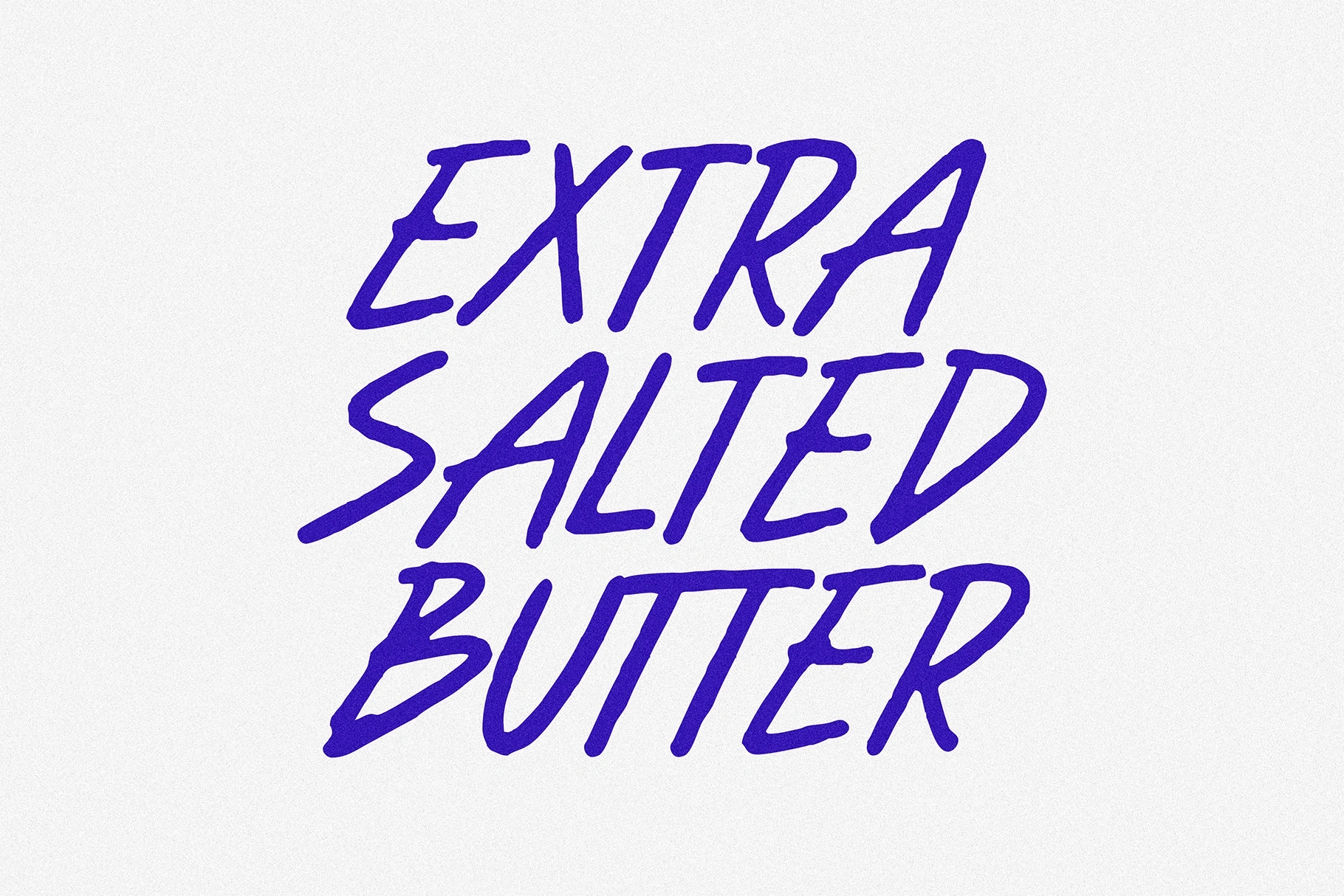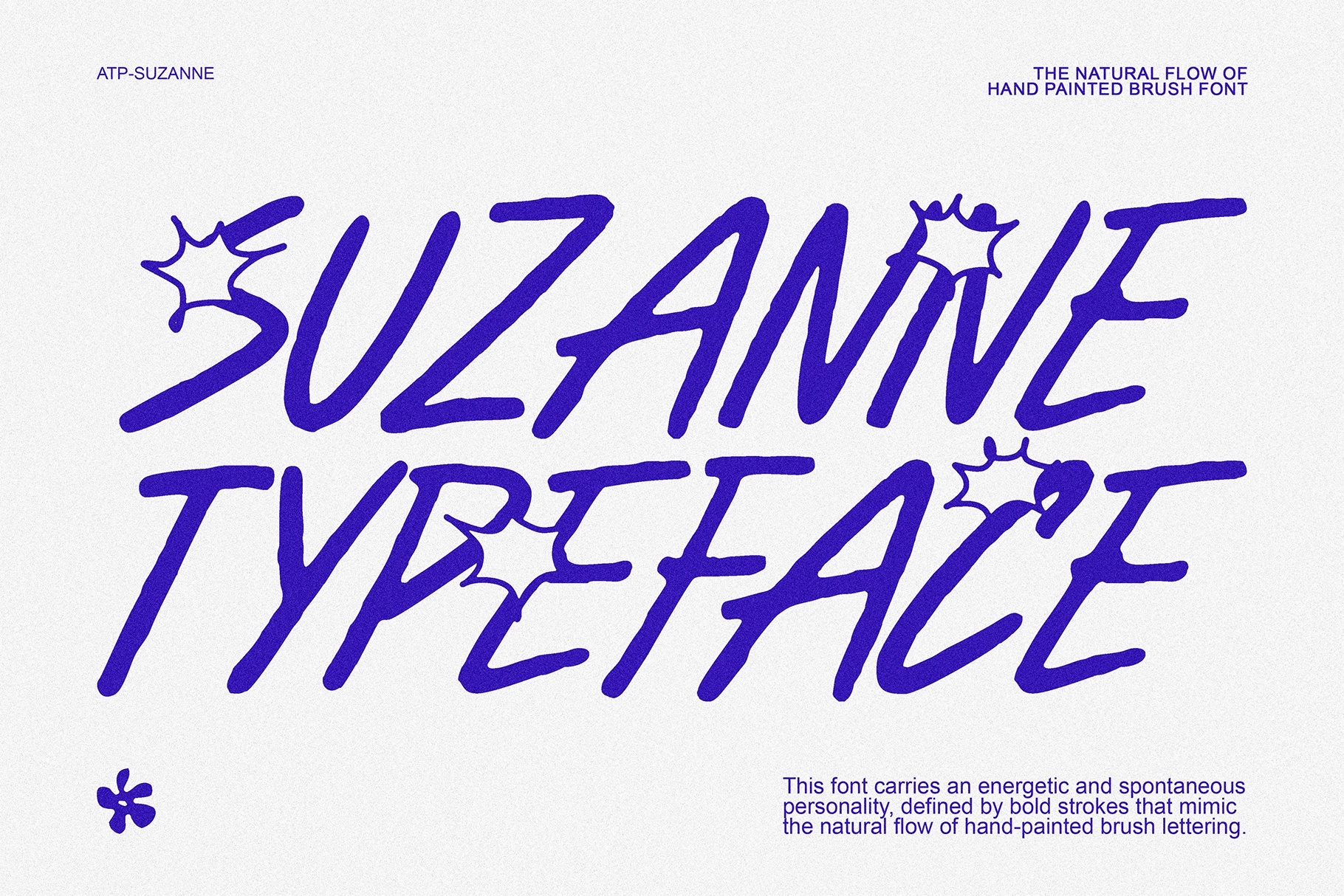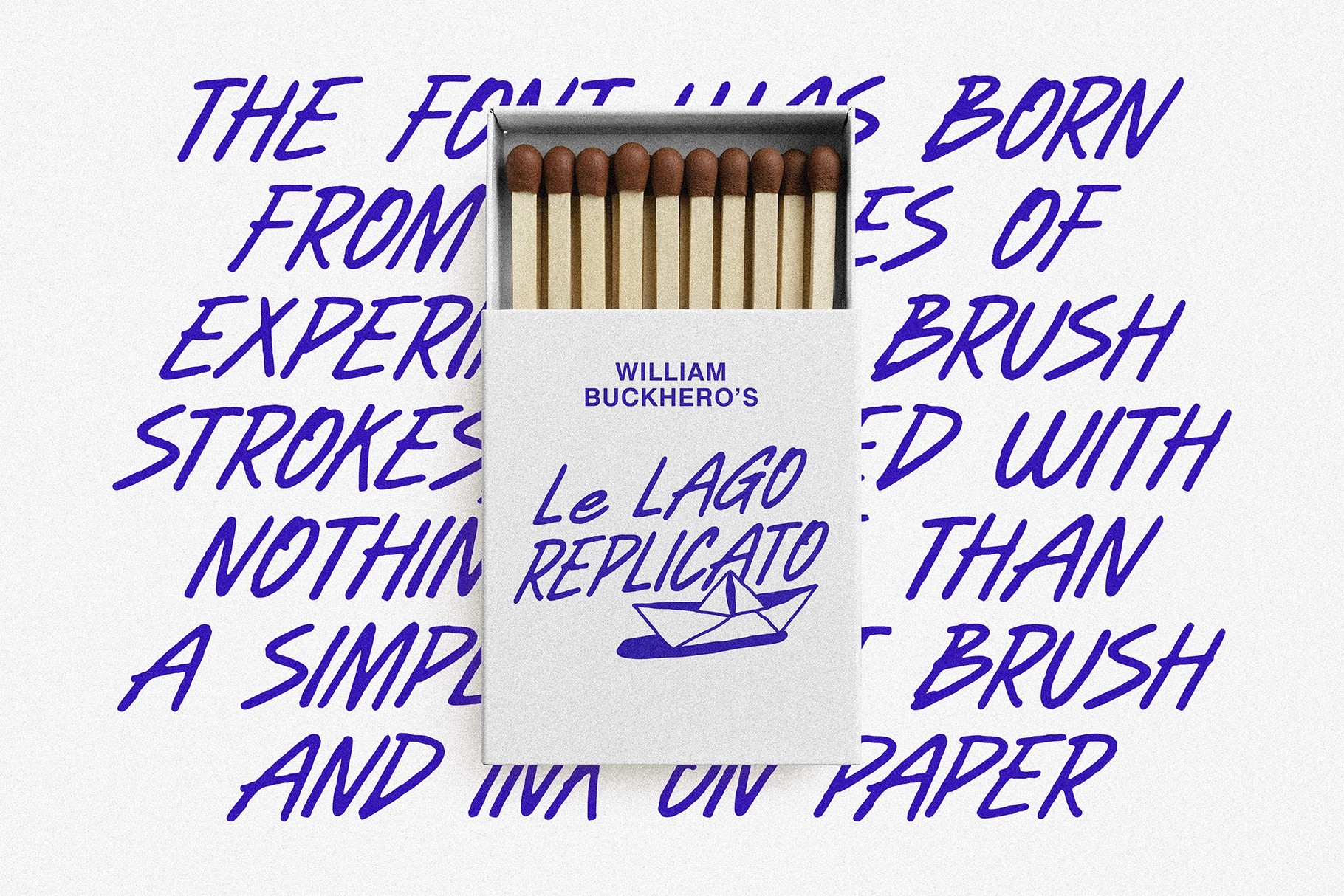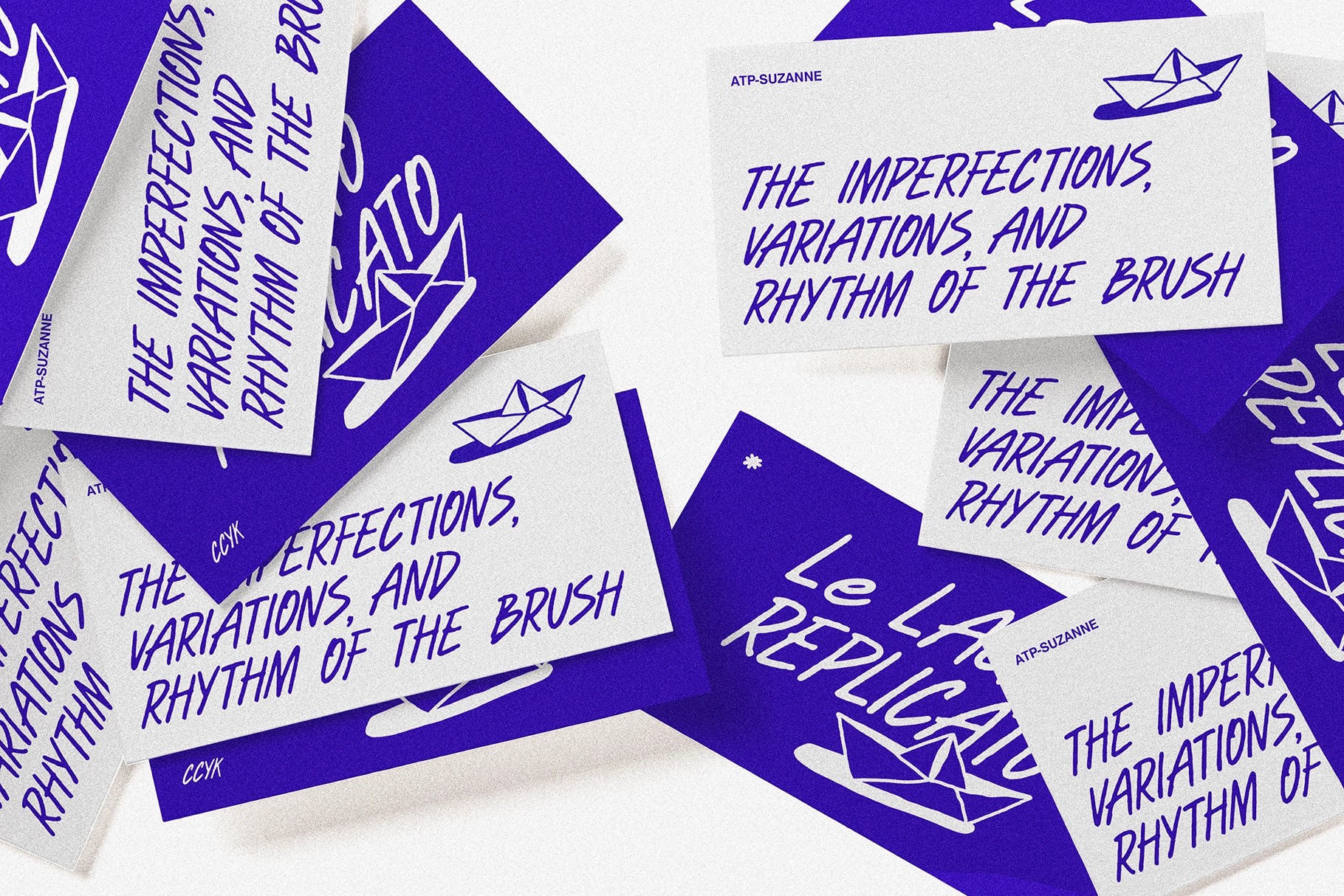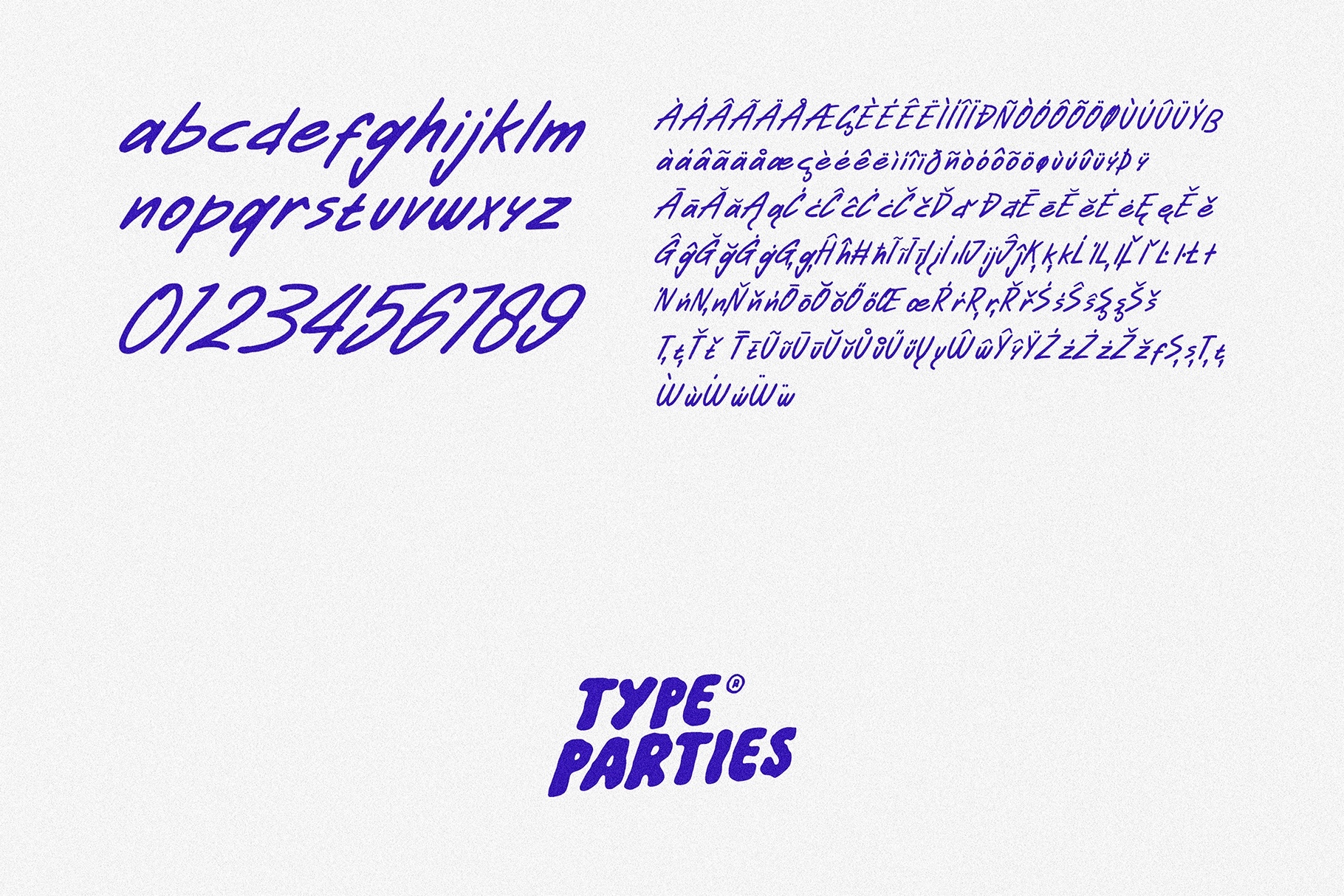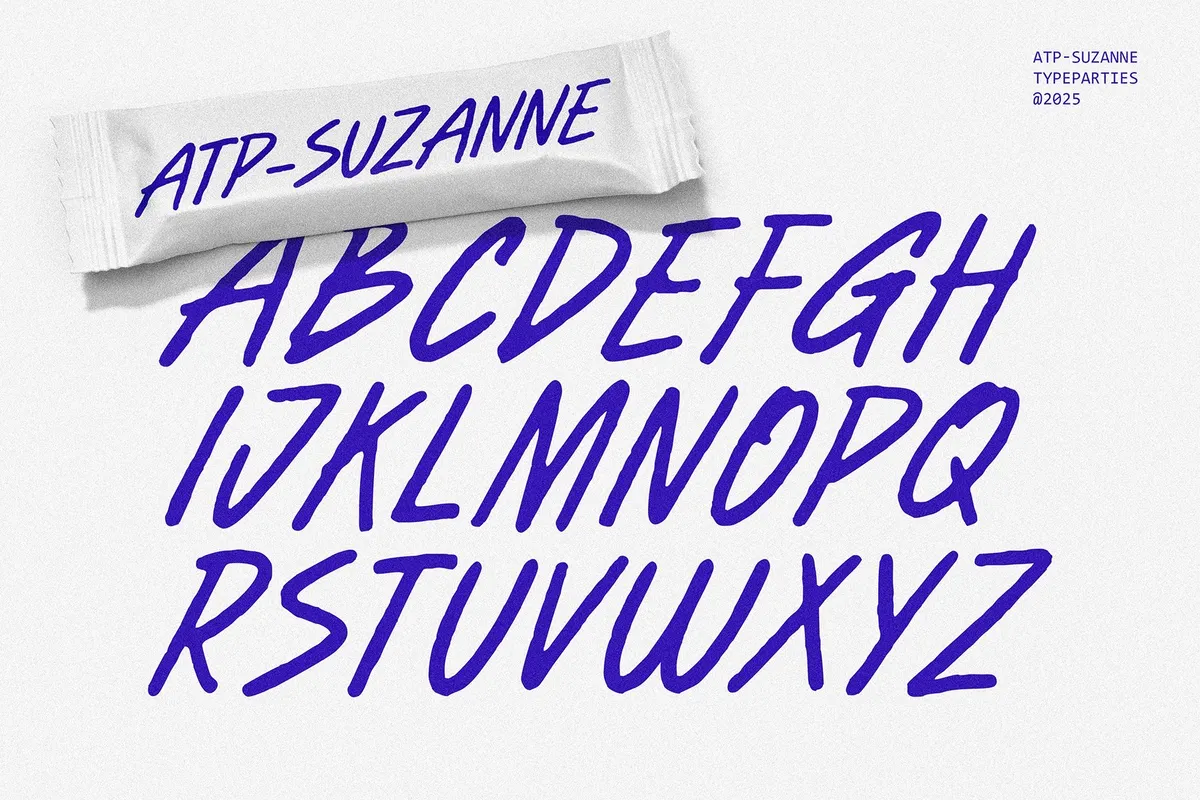
Suzanne - Handwritten Display Font
ATP-Suzanne
Suzanne carries an energetic and spontaneous personality, defined by skinny strokes that mimic the natural flow of hand-painted brush lettering. Each letter feels alive, slightly irregular yet harmonious, giving the typeface a raw authenticity. The texture of the strokes suggests speed, passion, and a human touch, making it ideal for creative projects that want to feel personal and expressive. Its tall, condensed form adds a sense of urgency and modern flair, while the brush-like details highlight its handcrafted essence.